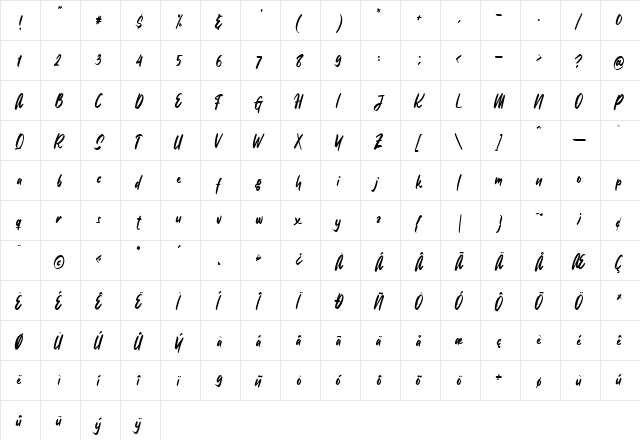
GreenSplash Regular
Design Context for GreenSplash Typeface
GreenSplash is a composed and adaptable typeface that performs quietly and consistently across a wide range of design contexts.